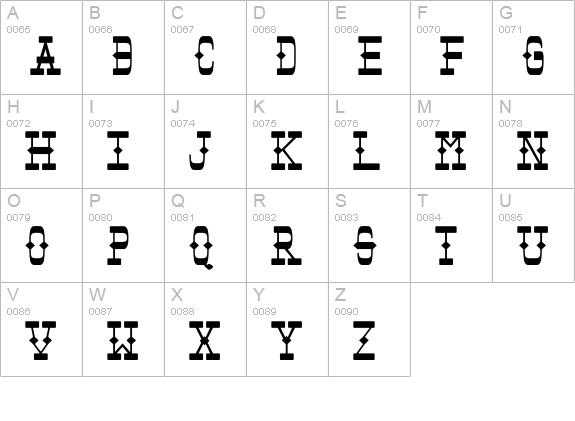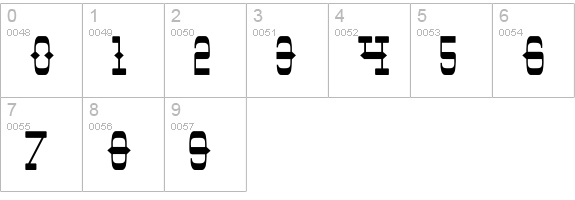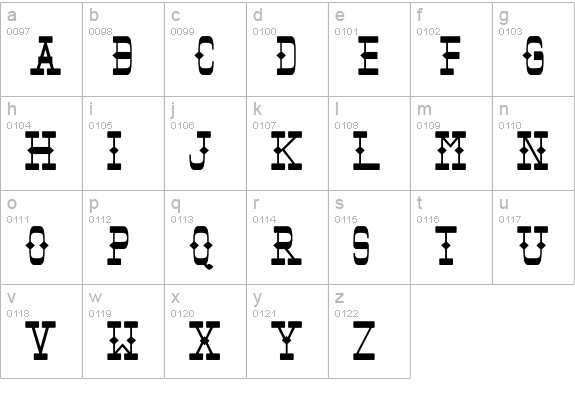
Tombstone Font Details
The Tombstone font is a striking and captivating typeface that will leave a lasting impression on any design project. Inspired by the iconic typography found on old western movie posters and vintage tombstones, this font exudes an air of mystery and ruggedness. With its bold and angular letterforms, Tombstone commands attention and adds a touch of authenticity to your designs. Whether you're working on a poster, logo, or any other design that requires a touch of the wild west, this font is sure to deliver. What sets Tombstone apart is not only its remarkable aesthetics but also its accessibility. It is available for free download at FontsMarket.com, making it an invaluable resource for designers on a budget or anyone looking to add a touch of old-world charm to their projects without breaking the bank. Once you've downloaded the Tombstone font, you'll find a wide range of possibilities for its use. Its versatility allows it to be used in both digital and print media, making it a perfect choice for branding, advertising, packaging, and more. Its unique and eye-catching appearance will grab the attention of viewers and add a sense of character to any design. So, whether you're working on a project that requires a touch of vintage charm, or you simply want to experiment with a font that stands out from the crowd, look no further than the Tombstone font. Download it for free at FontsMarket.com and unleash your creativity with this timeless typography.